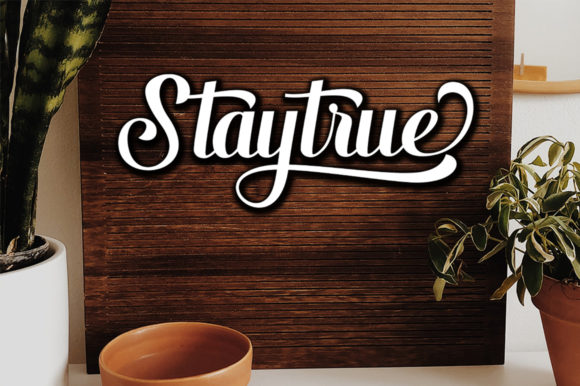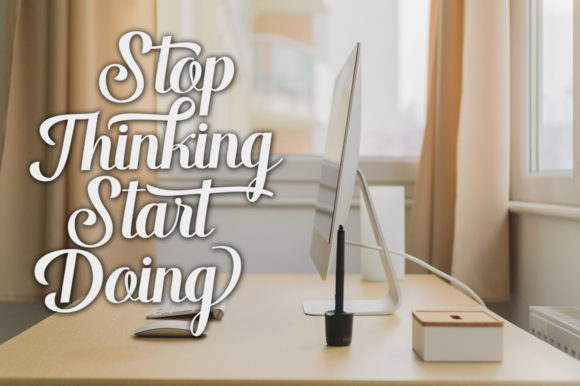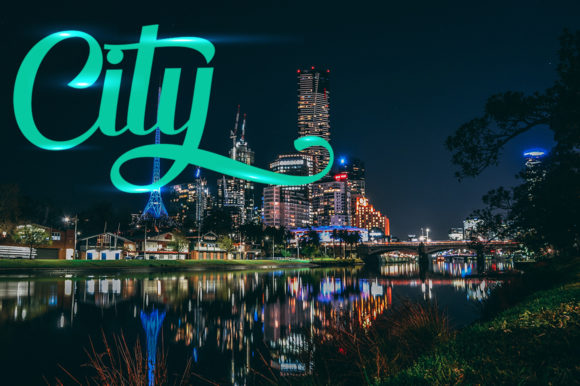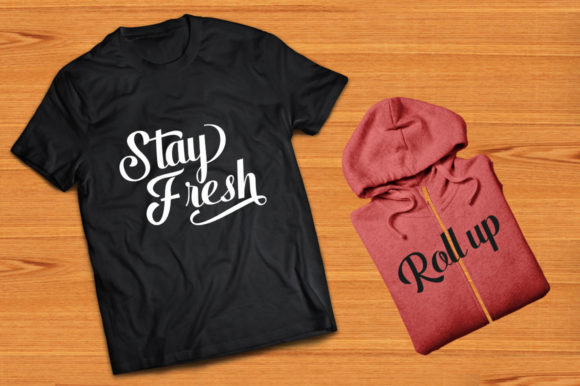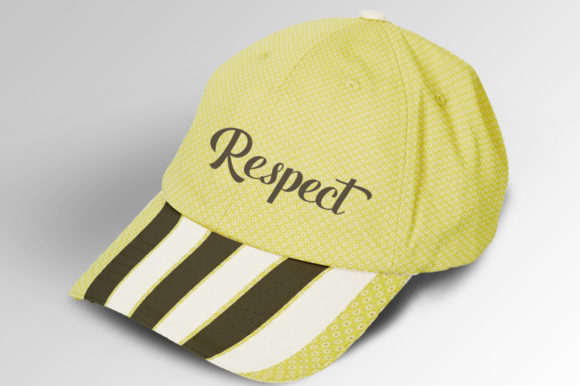
Warrior Script Font
About Warrior Script Font
The Warrior is a beautiful calligraphy script. It’s a mixture of copper calligraphy and a hand lettering style. The Warrior is a subtle, clean, feminine, sensual, glamorous, simple and a very readable typeface which can be used for every design which needs an elegant touch!